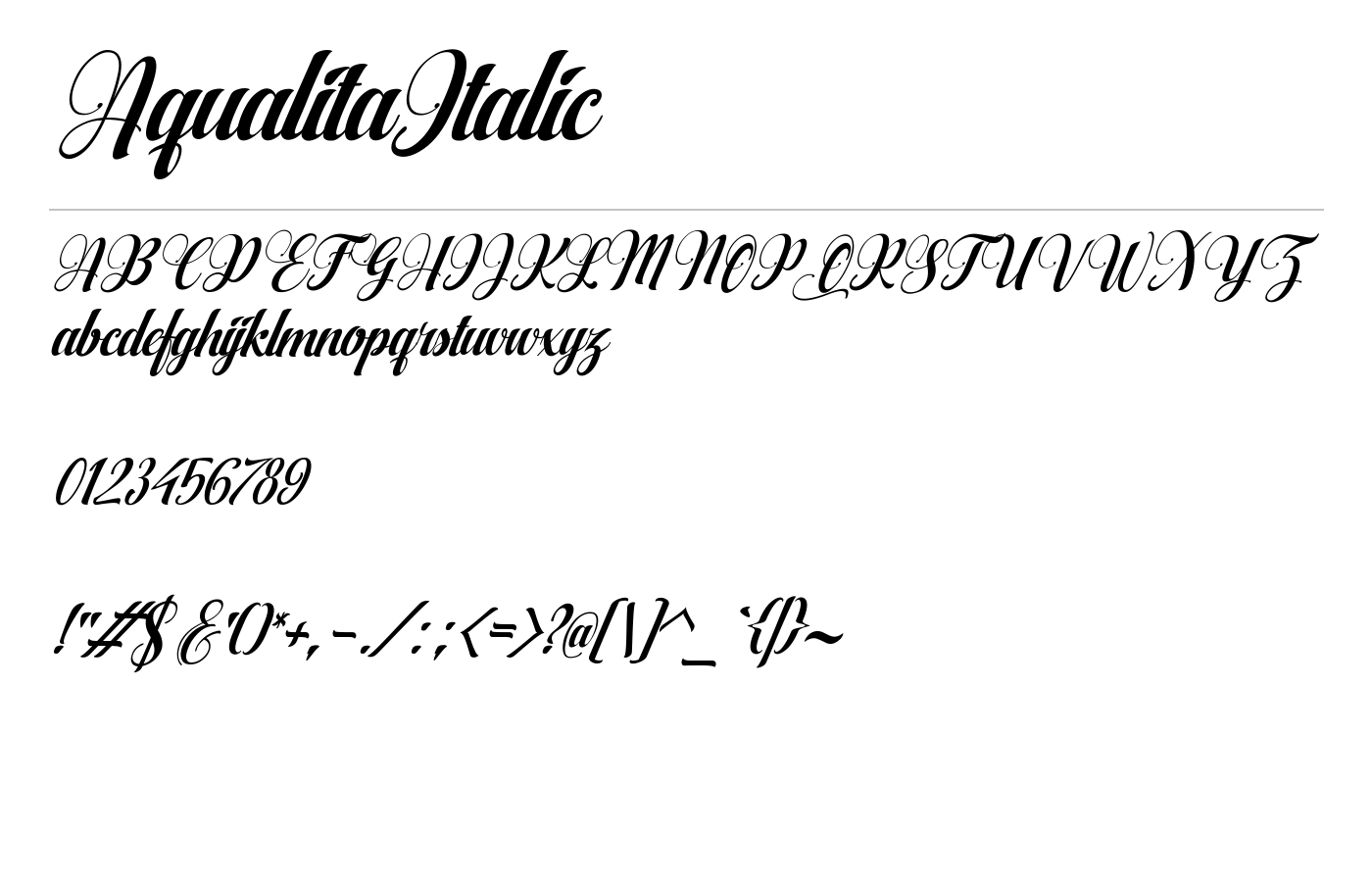
AqualitaItalic is an elegant script font characterized by its flowing, cursive letterforms and high contrast between thick and thin strokes. Its refined, italic style and delicate flourishes convey a sense of sophistication and grace, making it ideal for luxury branding, invitations, and stylish headlines. This font works best in contexts where a touch of classic beauty and formal charm is desired.
AqualitaItalic Font
About AqualitaItalic Font